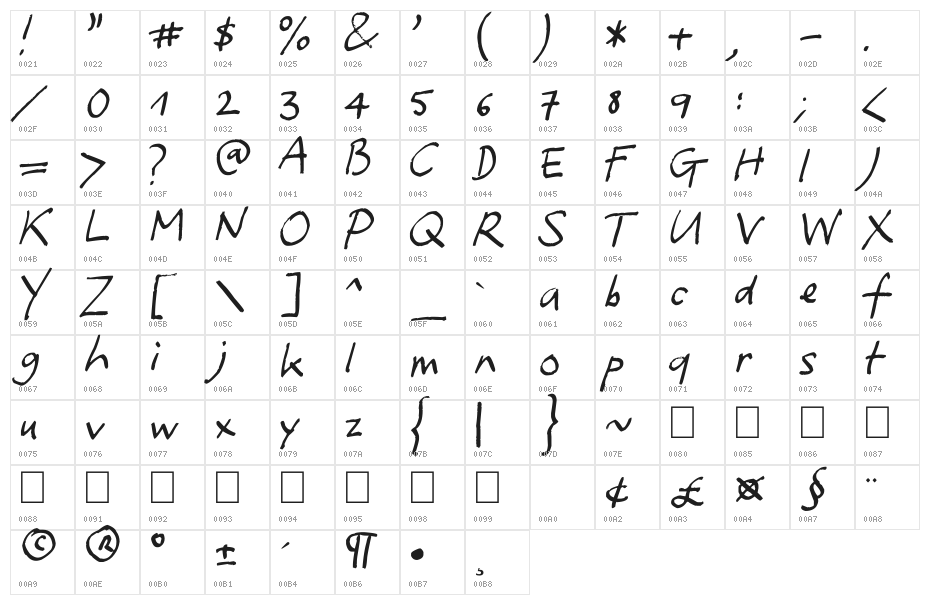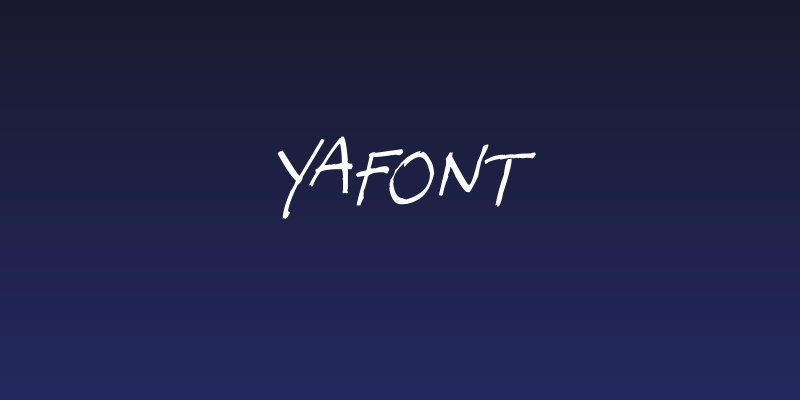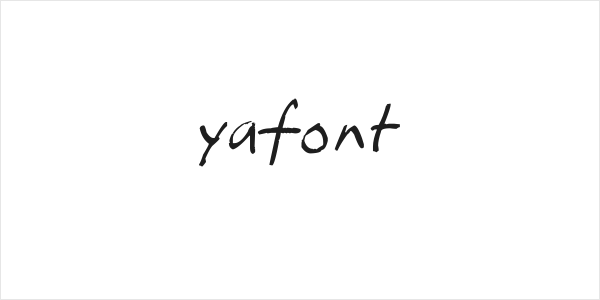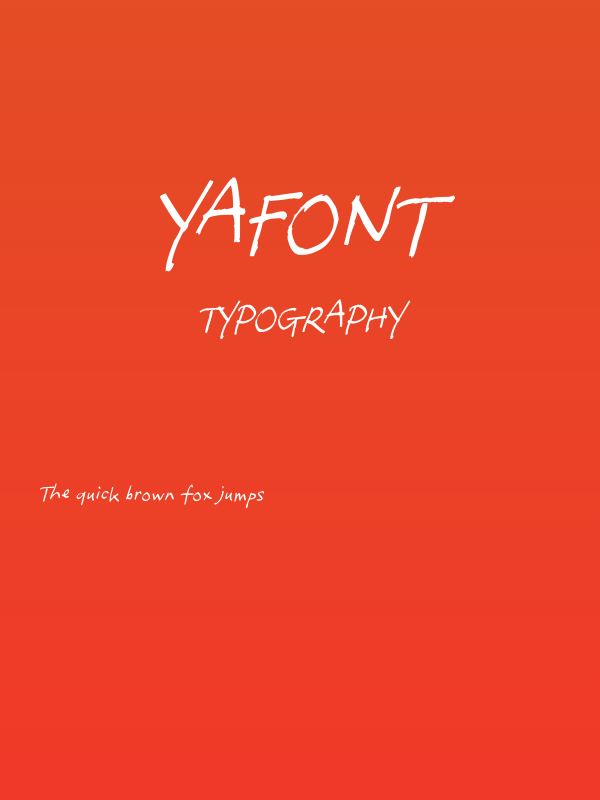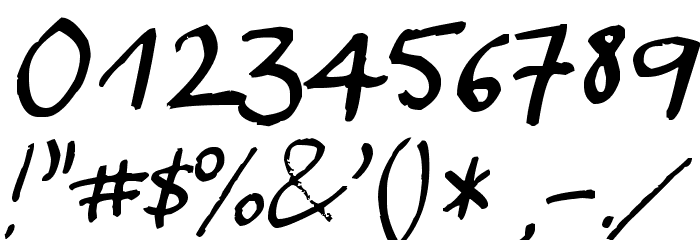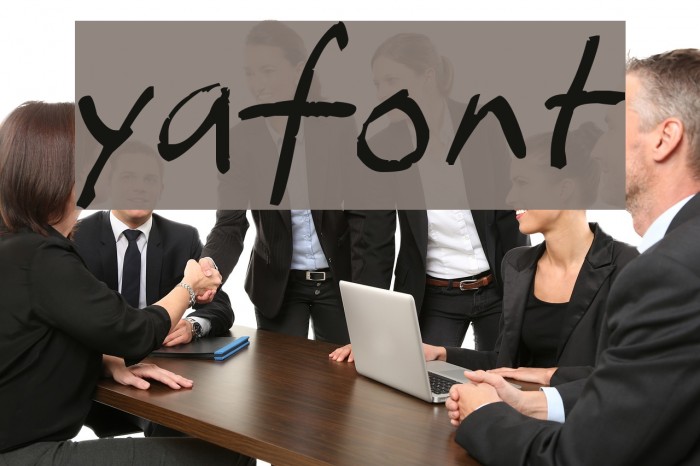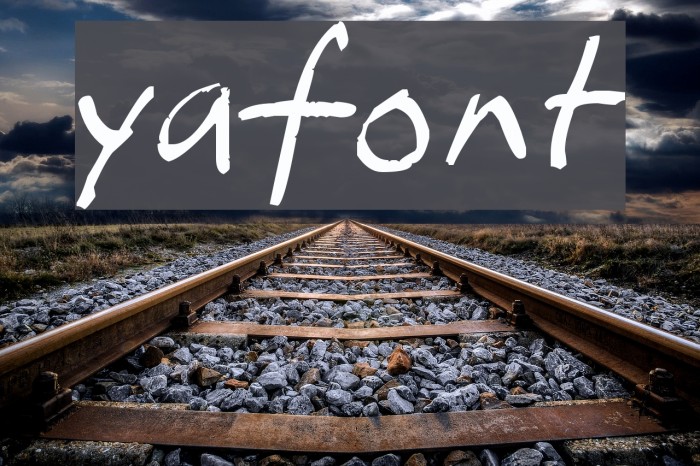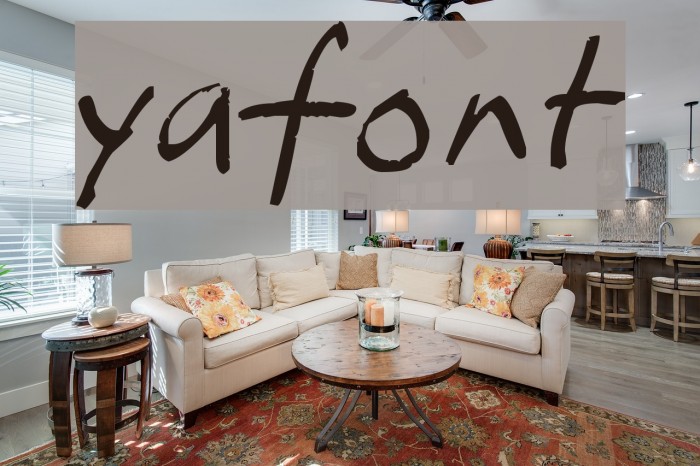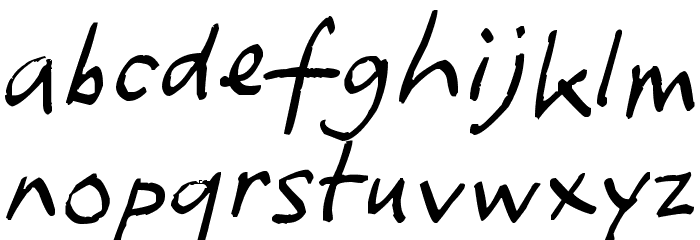
yafont Font
yafont Description
This font exhibits a dynamic and expressive handwritten style, characterized by its fluid and slightly irregular strokes that mimic natural handwriting. The letters are slightly slanted, giving a sense of movement and energy. Uppercase and lowercase letters maintain a consistent style, with some variation in stroke thickness that adds to the handwritten feel. The numerals and special characters are crafted with the same attention to detail, ensuring a cohesive look across all characters. This font's organic appearance makes it suitable for projects that require a personal touch.